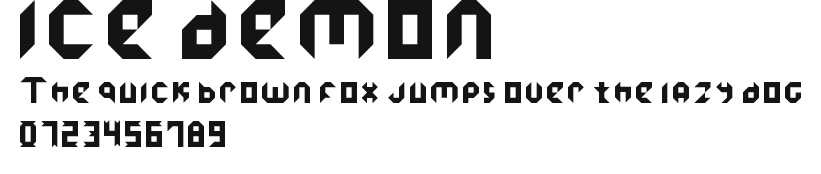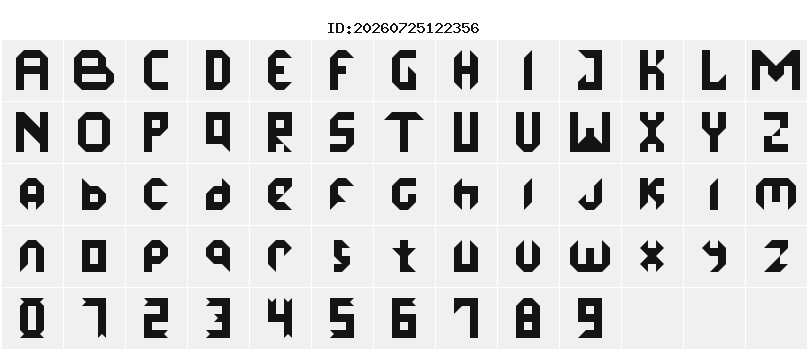
• Font Name: ice demon
• Designer: icedemon
• Description: ‚Äúice demon‚Äù was built with FontStruct
About ice demon.ttf
ice demon.ttf is a modern, elegant sans-serif font designed for ultimate readability and visual harmony. Perfect for branding, headlines, web design, and print materials.